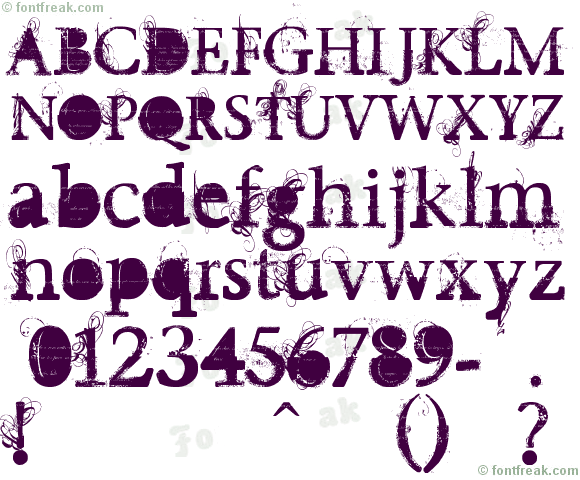
UNDECAPPED Vinyl
About UNDECAPPED Vinyl
The UNDECAPPED Vinyl font by Gyom Seguin is a distinctive display typeface that captures the essence of vintage vinyl aesthetics. Released in 2006, this font exudes a retro charm, perfect for creative projects that require a touch of nostalgia. It features a bold stroke weight with a textured finish that mimics the look of printed vinyl records, providing an engaging visual experience. The contrast within the letters is subtle yet effective, making it suitable for various applications.
With its unique characteristics, the UNDECAPPED Vinyl font is ideal for use in music-related graphics, retro-themed event invitations, and vibrant album covers. Its playful yet rugged appearance makes it a fantastic choice for posters that aim to grab attention, as well as for branding materials for cafes or bars that want to evoke a laid-back vibe. Content creators looking to craft social media graphics or YouTube thumbnails will also find this font enhances their visual storytelling, adding an authentic layer to their designs.
What sets the UNDECAPPED Vinyl font apart is its ability to blend a nostalgic aesthetic with modern usability. Its eye-catching design and versatility make it a valuable addition to any designer's toolkit. For those seeking to elevate their projects with a distinctive typeface, the UNDECAPPED Vinyl font free download offers a perfect solution that balances creativity with ease of access.